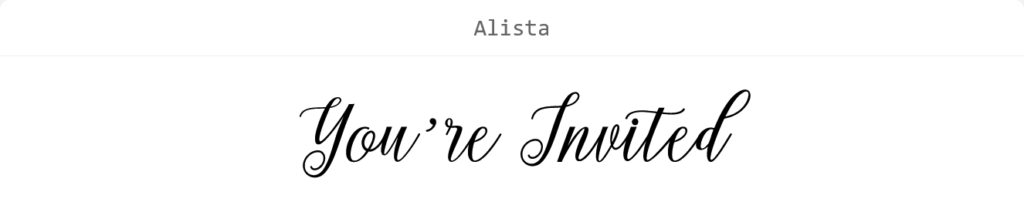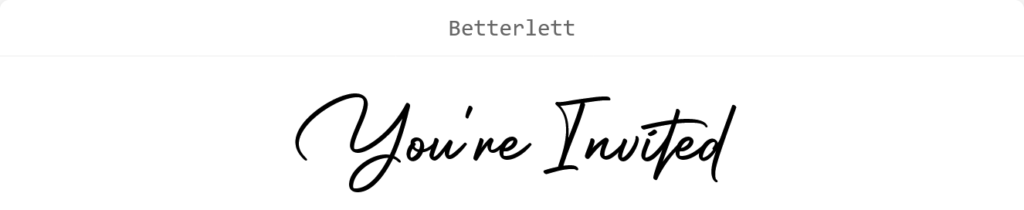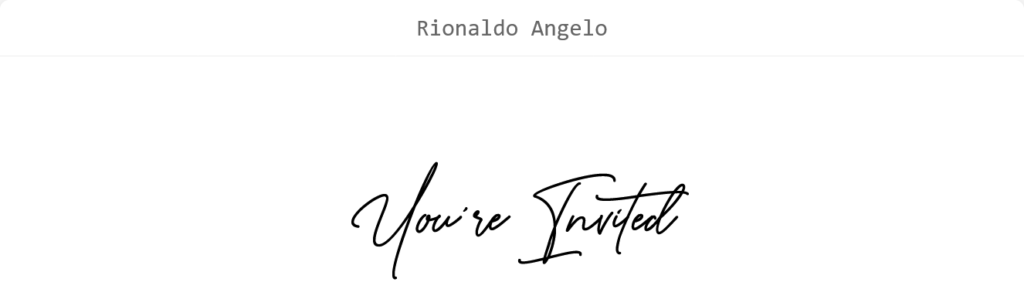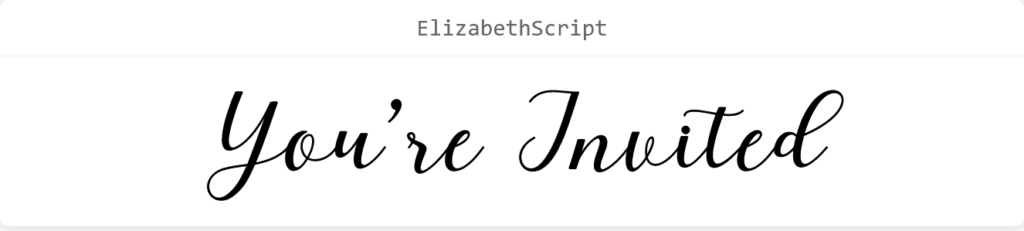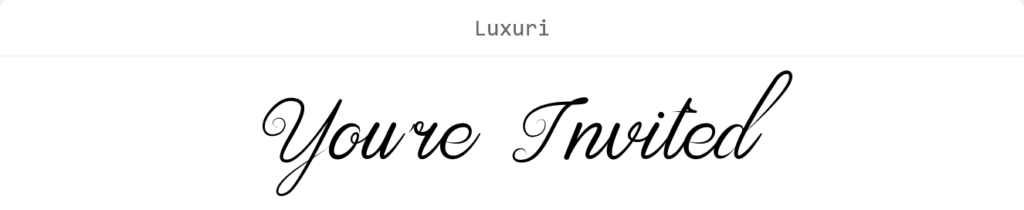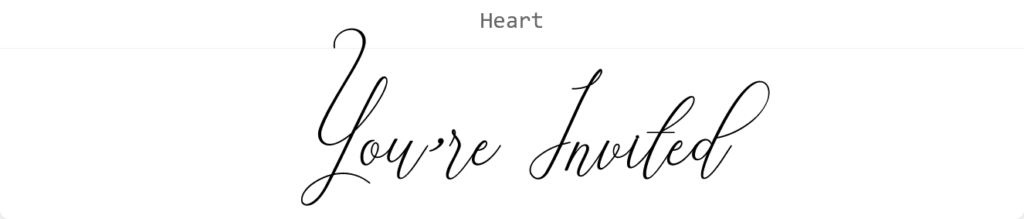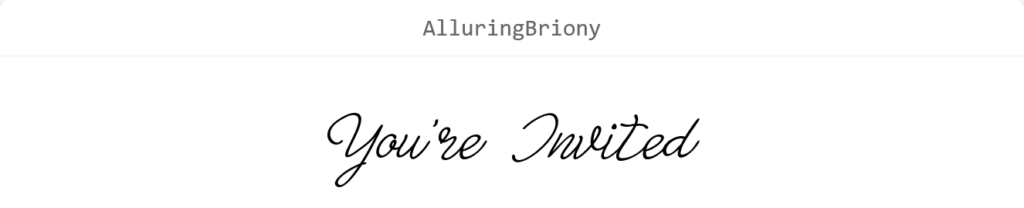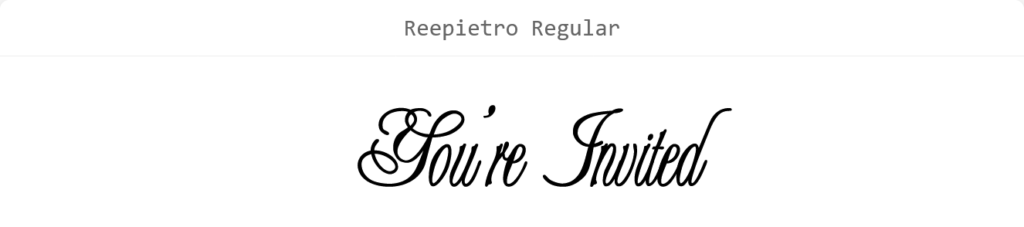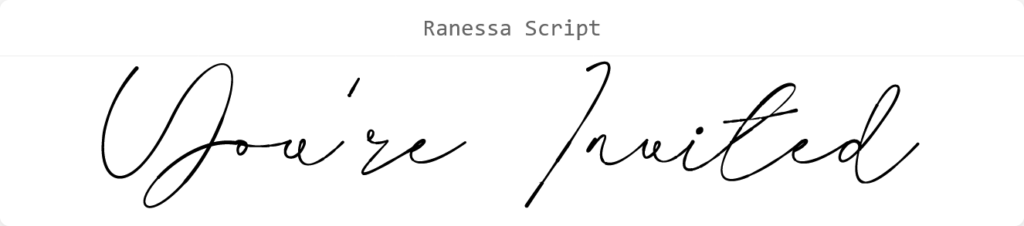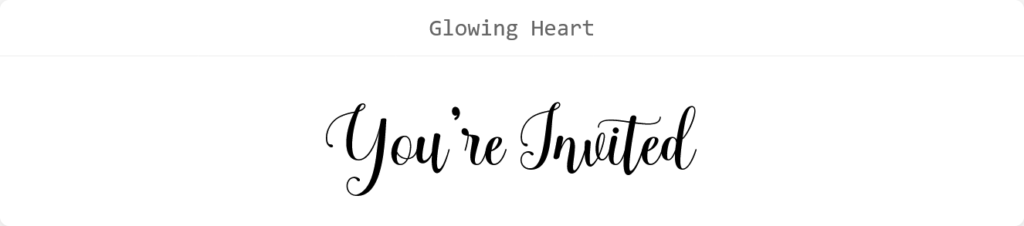
In this roundup, I’ve collected some of the best free wedding fonts that have a commercial license. These are perfect for invitations, save the dates, RSVP cards, envelopes, wedding signs, and more. Most feature script and calligraphy styles, along with a few modern handwritten options.
If you’re planning a wedding you might be agonizing over picking the right font. Fonts can really help set the vibe of your wedding when you use them on invitations, signs, menus etc. Generally, wedding fonts have one or more of the following characteristics: elegant, romantic, and timeless are just a few.
1. Alista
Alista is one of the more formal fonts on this list. However, its large flourishes that could work well for more black tie or more laid back weddings.
2. Betterlett
Betterlett feels more modern than many wedding script fonts. The brush-style strokes and slightly irregular letterforms give it a contemporary hand-lettered look that works well for modern, rustic, or outdoor weddings.
3. Bellarin
Bellarin has a more traditional calligraphy style. It’s still legible and so would be perfect for wedding stationery that needs a more traditional and formal feel.
4. Rionaldo Angelo
Rionaldo Angelo is more of a signature style font. It can come off as a bit more casual but it’s still perfect for your invitations.
5. Elizabeth Script
Elizabeth Script is a more bold font and has large looping capital letters. It’s probably a good font for headings, welcome signs and seating charts.
6. Smoothies
Smoothies features bold brush-style lettering that looks handwritten. It’s one of the more playful fonts on this list but it’s still polished enough for invitations and event stationery.
7. Luxury
Luxury is the perfect balance between classic and ornate. It’s not too complicated but it has the right amount o flourish to give a festive wedding feel.
8. Heart
Heart is characterized by its very tall capital letters. That being said it’s slightly off beat so if you’re looking for a playful calligraphy wedding font then this is the one for you. The sweeping “Y” creates an instantly recognizable look that gives designs a high-end custom calligraphy feel, even when used sparingly.
9. Alluring Briony
Alluring Briony is light and understated compared to some of the more elaborate scripts on this list. The letters have a natural handwritten flow without a lot of extra swashes. You can use it for a wide variety of applications like invitations, menus, place cards etc.
10. Reepietro Regular
Reepietro Regular is one of the more decorative fonts in this collection. It has elaborate swashes and a vintage-inspired feel. I love this font so much, it would work really well for monograms as well as opening headings.
11. Leadent Script
Leadent Script is the perfect palatable wedding font. It has a romantic but elegant feel and can be used for virtually anything.
12. Ranessa Script
Ranessa Script looks like a custom calligraphy font. It has a loose handwritten style with exaggerated loops. It’s good if you are a bit more minimalist and contemporary.
13. Glowing Heart
Glowing Heart is the font you imagine when you think of most wedding fonts. While this commonly used style isn’t everyone’s cup of tea, it does have a playful charm that some many love. It’s great particularly for invitations.
14. Histeria Bites
Histeria Bites is a font with thin strokes and large loops. Since it’s so thin, you may want to use it sparingly or balance it with fonts of a heavier weight.
15. Alamanda
Alamanda is a stylish script font with expressive capitals letters and a handwritten feel. It’s perfect for those who want a calligraphy style font that isn’t super traditional.
16. Kitsor Rauttie
Kitsor Rauttie is one the most delicate fonts on this list. It works best at larger sizes where the details can really shine.
17. Gelisha Script/Dealisya
Gelisha Script/Dealisya has a playful calligraphy style with decorative loops throughout the capitals and lowercase letters. Compared to more traditional wedding fonts, it feels a little softer and more romantic while still remaining easy to read.
18. Wedding Script
Wedding Script is a calligraphy font with restrained flourishes. It has the timeless look many people picture when they think of wedding typography and so is an easy choice for invitations, RSVP cards, and save the dates.
19. Background
Background stands out as it has very tall capital letters. These oversized capitals would be great for writing the couples names, or that of their parents etc.
20. Rellista Script
Finally, we have the light, graceful, and airy Rellista Script. This kind of delicate style works well for invitation designs.